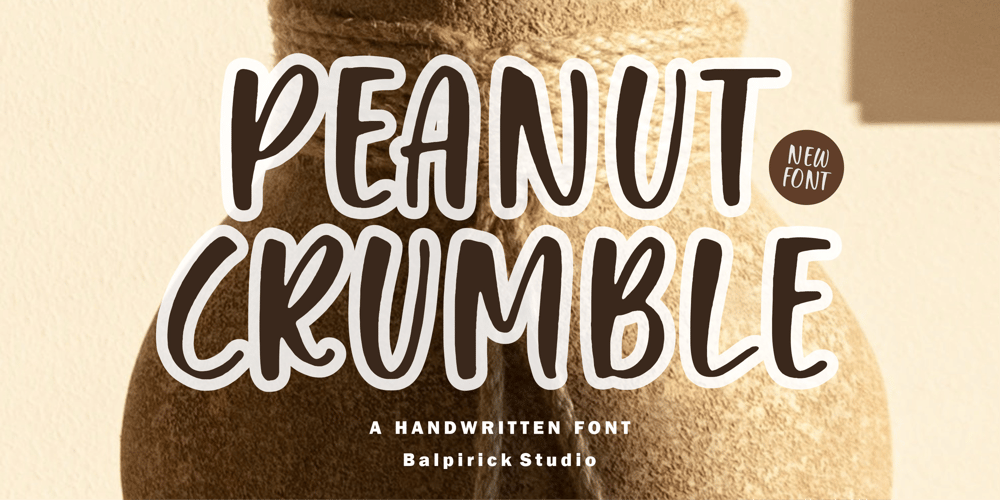
Peanut Crumble
Peanut Crumble font
Peanut Crumble Font Family was designed by Restu Angga and published by Balpirick. Peanut Crumble contains 1 styles and family package options. Peanut Crumble is a Handwritten Font.Whether you’re using it for crafts, digital design, presentations, or making greeting cards, this font has the potential to become your favorite go-to font, no matter the occasion!This font only has allcaps letters.Enjoy the font! Feel free to comment or feedback!Thank you!